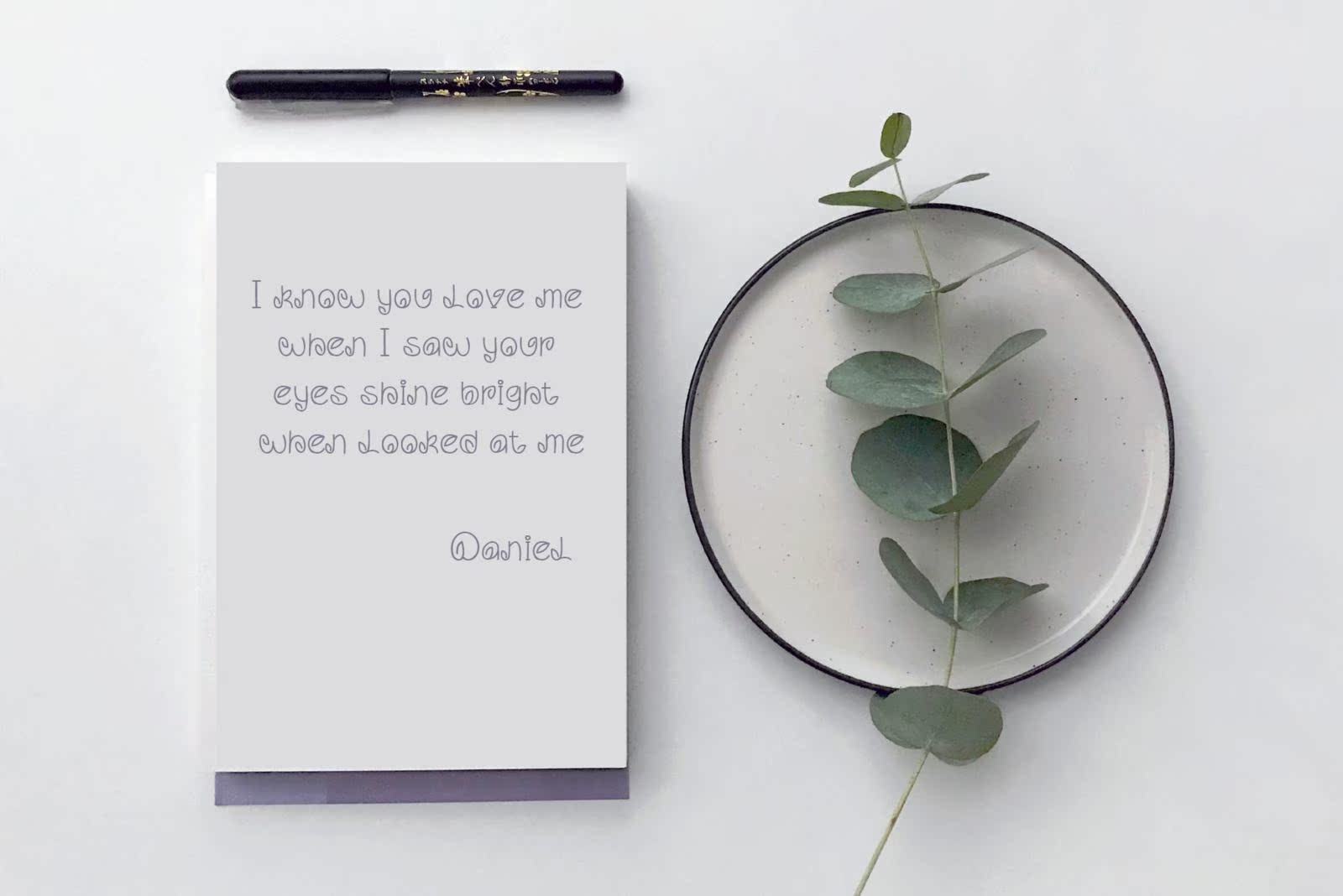
LeafHandWrittenFontInStyleUnique.SetofMulticoloredBrightLetters字体和YourDesign.VectorillInstruction.Isolatedonwhitebackground.LeafHandWrittenFontInStyleUnique.SetofMulticoloredBrightLetters字体和YourDesign.VectorillInstruction.Isolatedonwhitebackground。